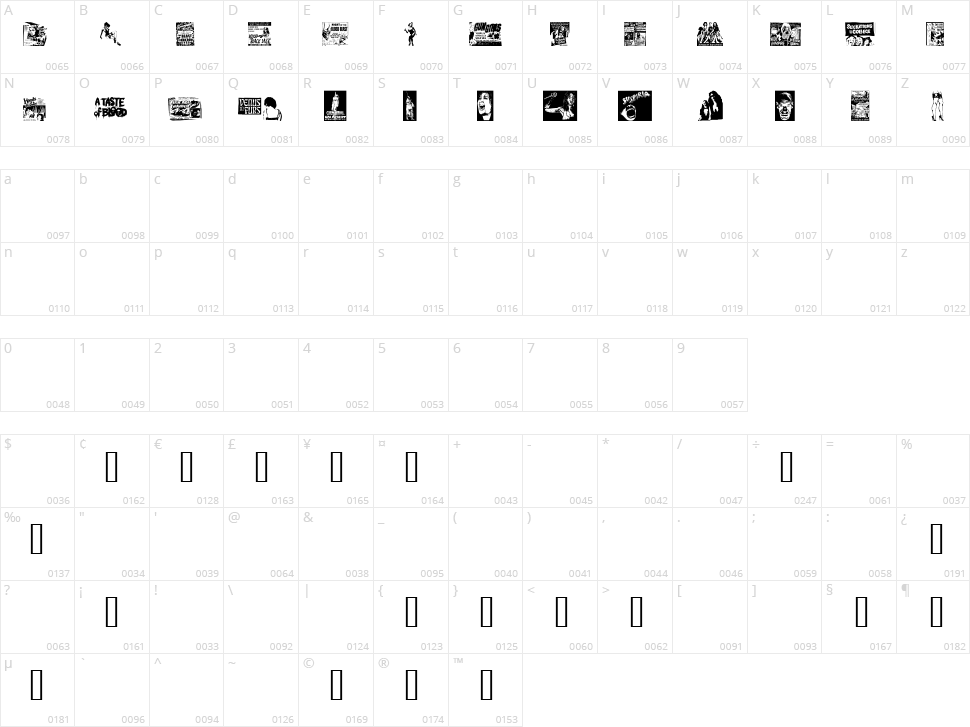
B Movie Dings
Made from old ad galleys and deteriorating magazines found in attics, B Movie Dings is probably the most useless dingbat font of all time.
Breakdown of characters: (Font is in all caps)
A - Teenage Bad Girl
B - unknown shameless hussy
C - Beast w/Million Eyes
D - Blood & Black Lace
E - Night Of The Blood Beast
F - another unknown trollop
G - Gun Girls
H - The Hands Of Orlac
I - Double Feature: Hell's Bloody Devils & Satan's Sadists
J - Runaway Daughters
K - Double Feature: Nude Vampire & Requiem For A Vampire
L - Sex Kittens Go To College
M - She Gods Of Shark Reef
N - Hands Of A Stranger
O - A Taste Of Blood
P - Teen Age Thunder
Q - Venus In Furs
R - Cannibal Holocaust
S - hanging girl victim
T - screaming girl victim
U - girl about to not be a victim anymore
V - Suspiria
W - Italian babes, very low res
X - Rondo Hattan
Y - Macabro (Spanish)
Z - unknown hussy legs